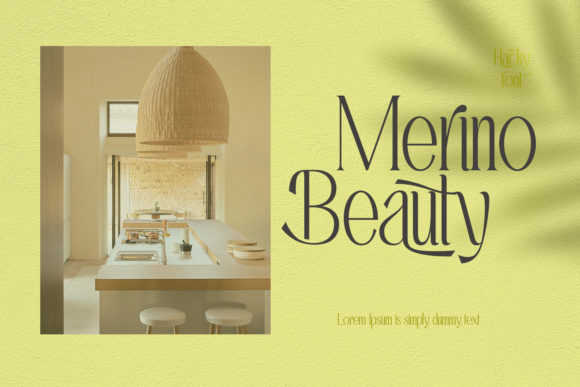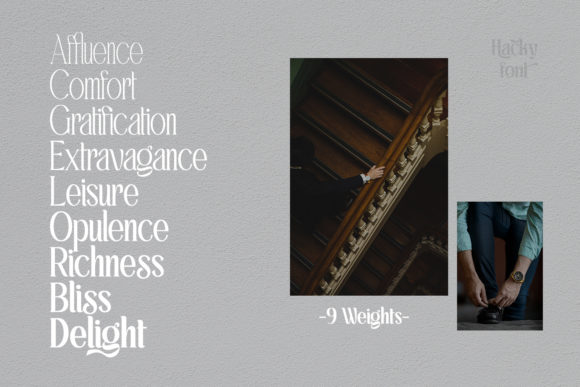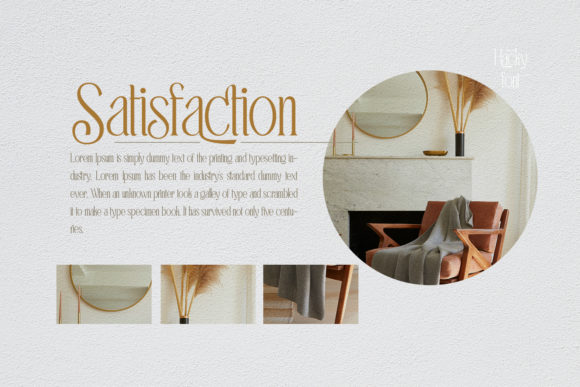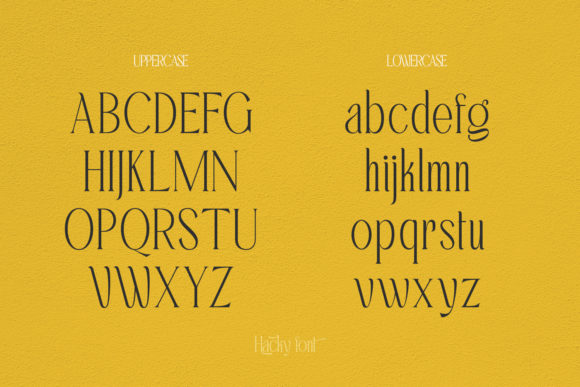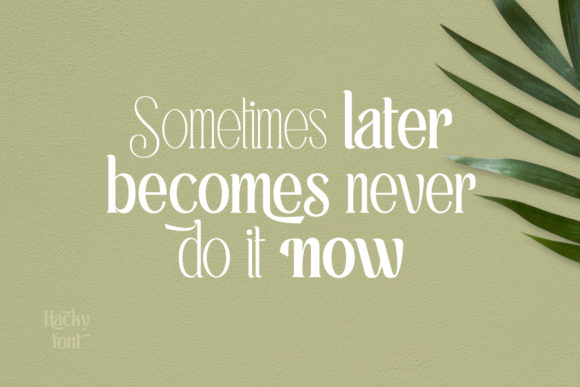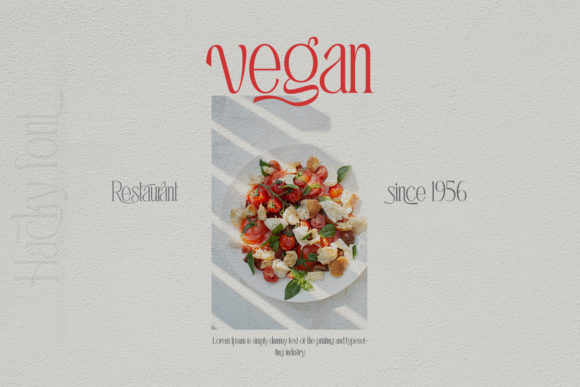
Introducing Hacky Light Font: Elevate Your Designs with Elegance
In the world of design, typography plays a crucial role in conveying messages, evoking emotions, and creating lasting impressions. For designers and crafters seeking a font that embodies style, delicacy, and versatility, Hacky Light Font is an exceptional choice. This stylish and delicate serif font is poised to become a favorite for a wide range of design projects, thanks to its clean, thin, and smooth aesthetic.
The Essence of Hacky Light Font
Hacky Light Font is characterized by its elegant serif design, which exudes a sense of sophistication and refinement. Its thin and smooth lines make it an ideal choice for designs that require a touch of elegance and poise. Whether you’re working on branding, product packaging, invitations, quotes, t-shirts, labels, posters, or logos, Hacky Light Font is sure to enhance your creations with its unique charm.
One of the standout features of Hacky Light Font is its versatility. Its clean and delicate appearance makes it suitable for a wide range of applications, from digital designs to print materials. Here are some ways you can utilize Hacky Light Font in your projects:
- Branding: Create a lasting impression with your brand’s identity by using Hacky Light Font in your logos, business cards, and letterheads.
- Product Packaging: Add a touch of elegance to your product packaging with Hacky Light Font, making your products stand out on store shelves.
- Invitations: Design beautiful and sophisticated invitations for special occasions, such as weddings, birthdays, and anniversaries.
- Quotes and Posters: Create inspiring and visually appealing quotes and posters that showcase your message in a stylish and impactful way.
- T-Shirts and Apparel: Design trendy and fashionable t-shirts, hoodies, and other apparel with Hacky Light Font, perfect for personal use or as merchandise.
- Labels and Stickers: Use Hacky Light Font to create eye-catching labels and stickers for your products, events, or promotions.
Why Choose Hacky Light Font?
With so many fonts available, why should you choose Hacky Light Font for your designs? Here are some compelling reasons:
- Unique Style: Hacky Light Font boasts a distinctive and stylish design that sets it apart from other fonts.
- Elegance and Sophistication: Its delicate and smooth lines evoke a sense of elegance and sophistication, perfect for designs that require a touch of refinement.
- Readability: Hacky Light Font is highly readable, making it suitable for both digital and print materials.
- Flexibility: Its versatility allows you to use it in a wide range of applications, from branding to product packaging and more.
Tips for Using Hacky Light Font
To get the most out of Hacky Light Font, here are some tips to keep in mind:
- Pair it with Other Fonts: Experiment with pairing Hacky Light Font with other fonts to create visually appealing combinations.
- Adjust Font Sizes: Play with different font sizes to create visual hierarchy and emphasize important information.
- Use it for Headings and Titles: Hacky Light Font is perfect for headings and titles, adding a touch of elegance to your designs.
- Experiment with Colors: Try out different colors to find the perfect match for your design and brand.
| Font Name | Hacky Light Font |
| Author | madeDeduk |
Hacky Light Font is a stylish and delicate serif font that is sure to elevate your designs with its elegance and sophistication. Its versatility, readability, and unique style make it an excellent choice for a wide range of applications, from branding to product packaging and more. Whether you’re a designer or crafter, Hacky Light Font is a valuable addition to your typography collection.